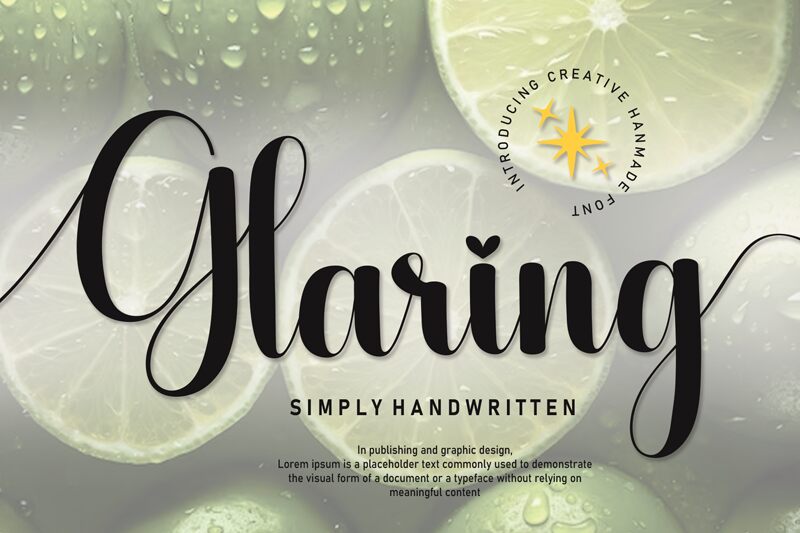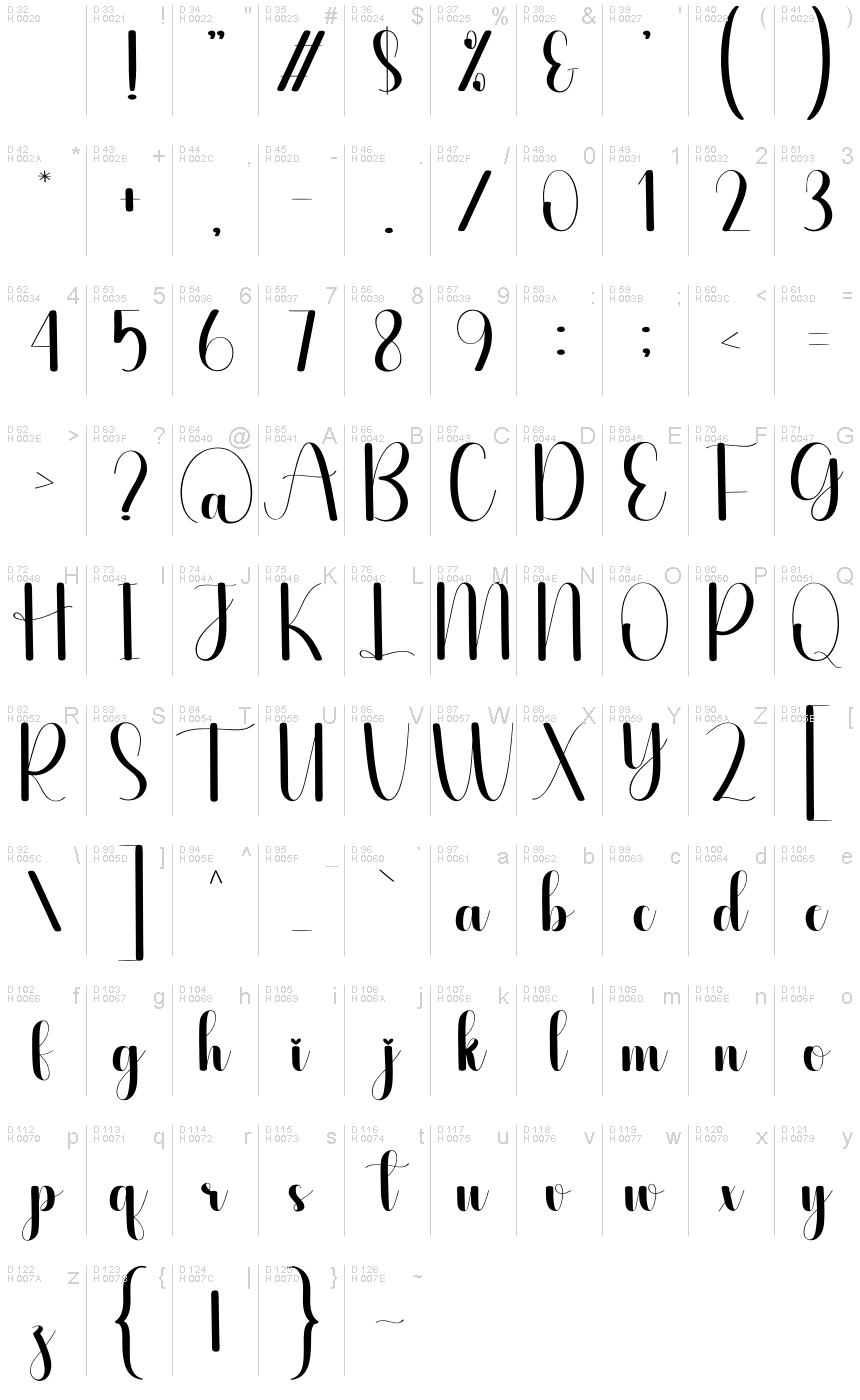
Glaring
Glaring font by Scratchones is a captivating calligraphy style that exudes elegance and fluidity. Its graceful curves and artistic flair make it perfect for projects requiring a touch of sophistication. The font's bold strokes bring a striking presence, ideal for creating standout designs.
Whether you're designing wedding invitations, branding materials, or social media graphics, Glaring font adds an exquisite charm. Its unique calligraphic detail also suits titles or headers where beauty and readability are paramount.